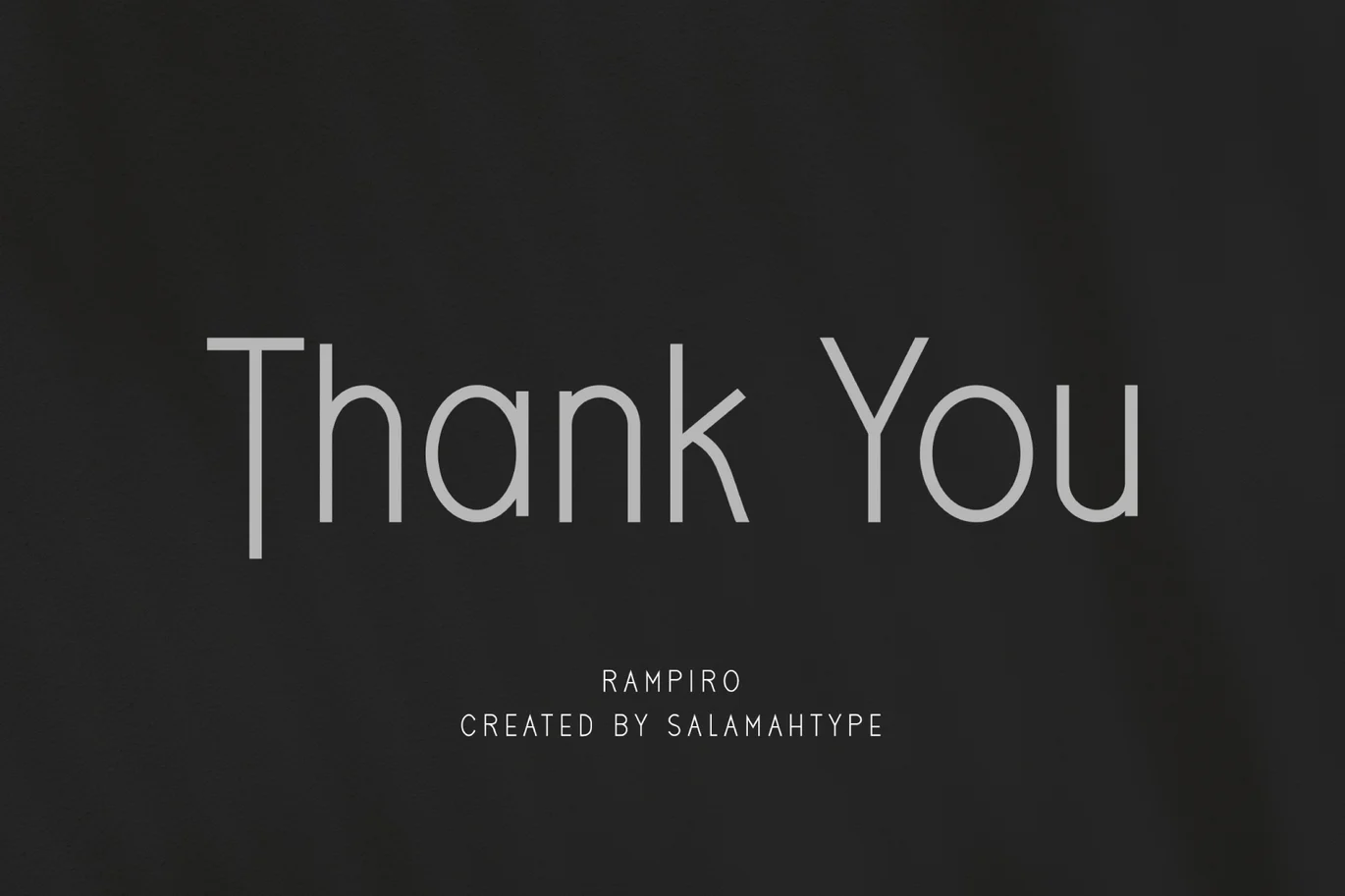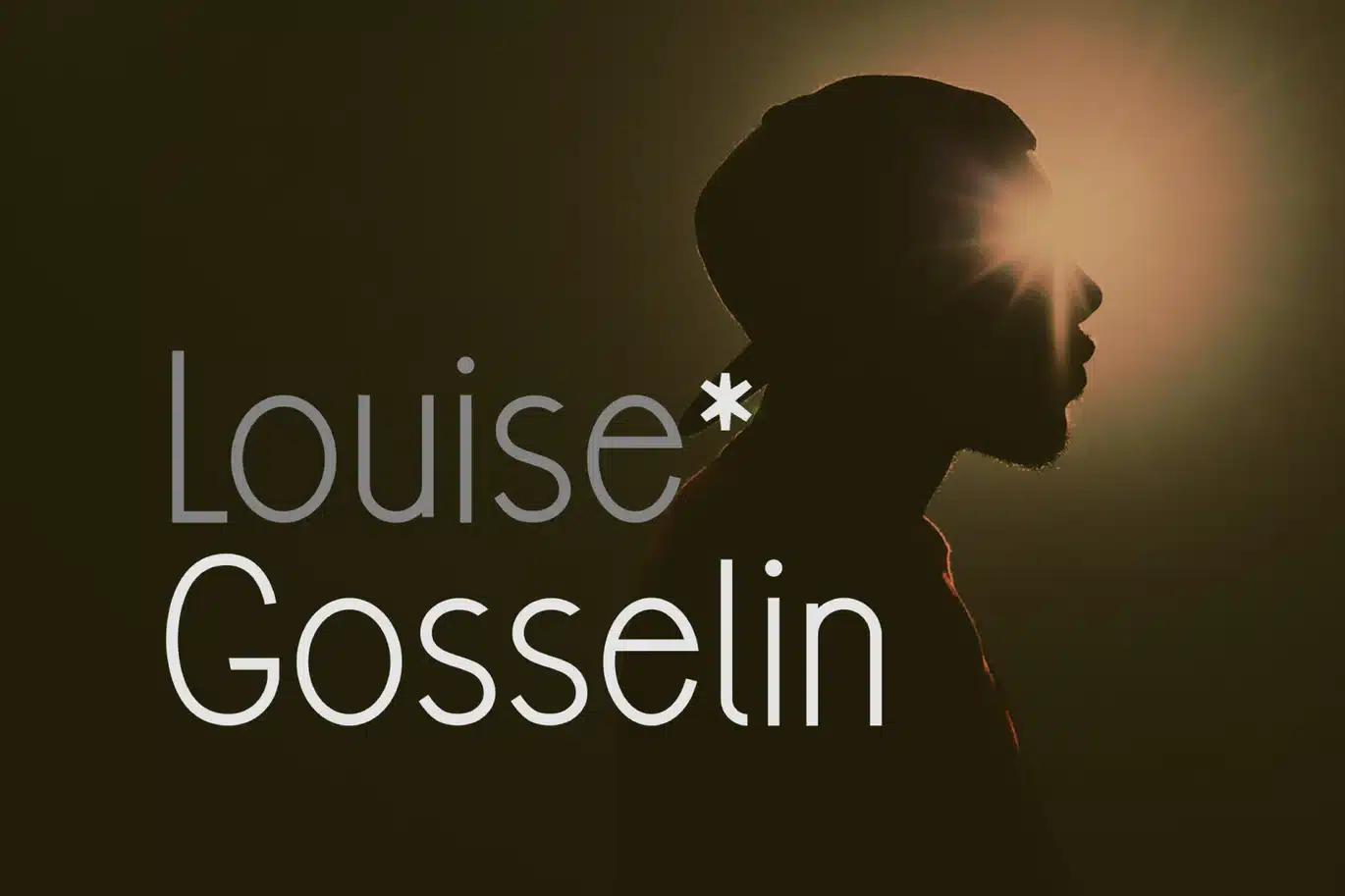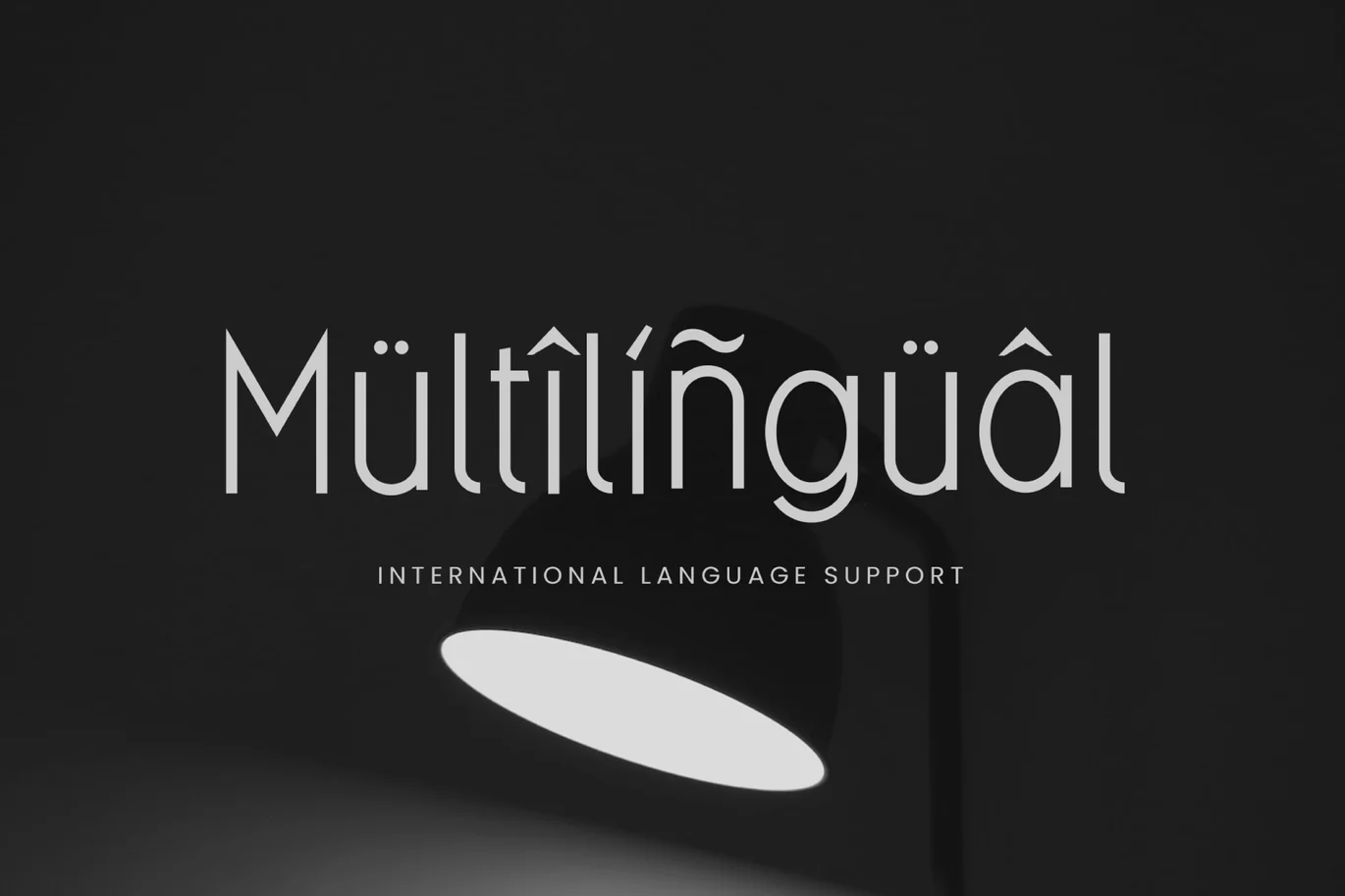
Rampiro Sans Font
A minimalist sans serif font called “Rampiro” is perfect for branding projects, logos, social media posts, advertisements, product packaging, wedding invitations, product designs, labels, photography, watermarks, stationery, and more.